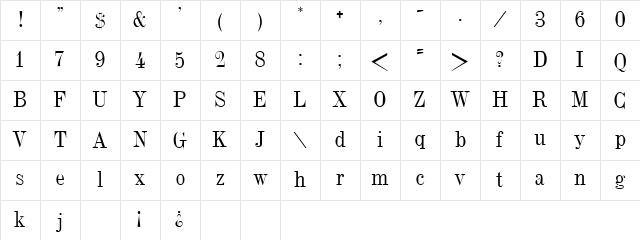
Cryptographer Plain Regular Free Font
Cryptographer Plain Regular
Design Context for Cryptographer Plain
Cryptographer Plain is a composed and adaptable typeface that performs quietly and consistently across a wide range of design contexts.